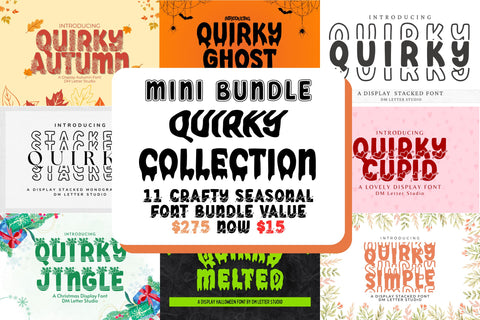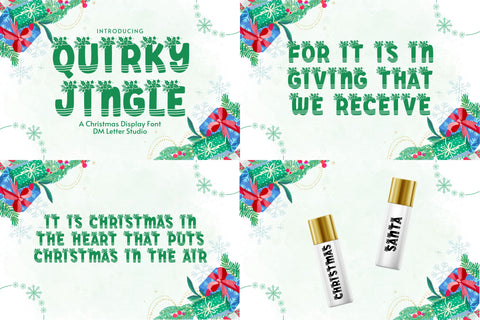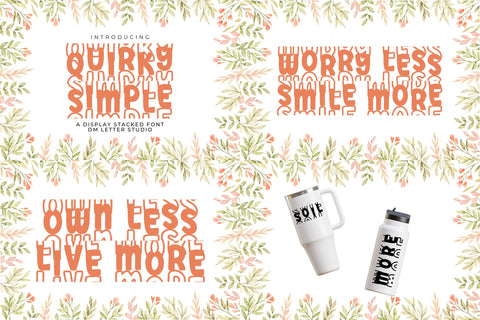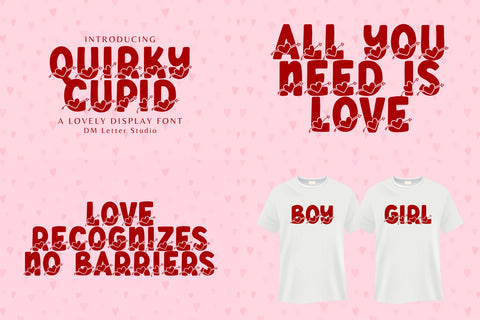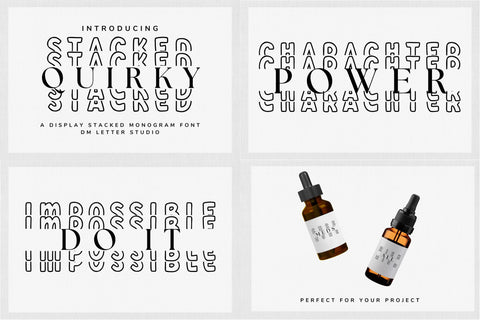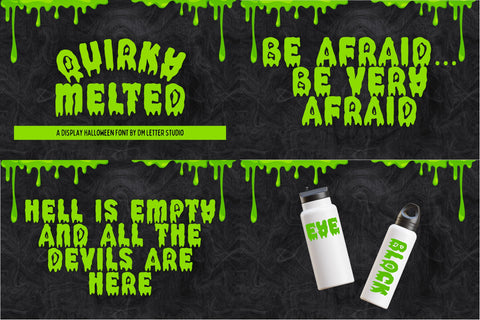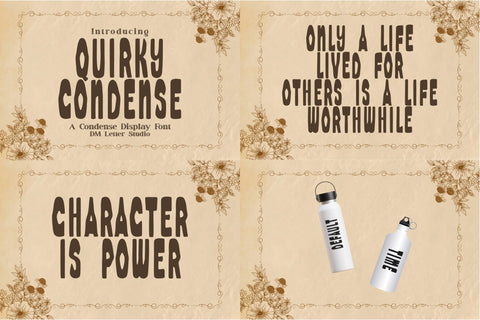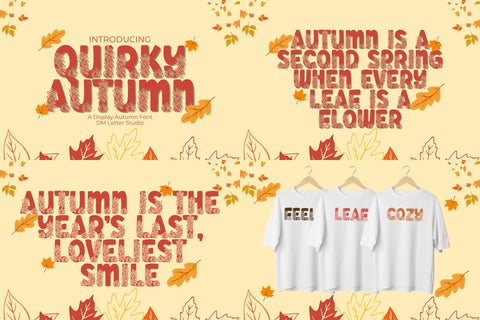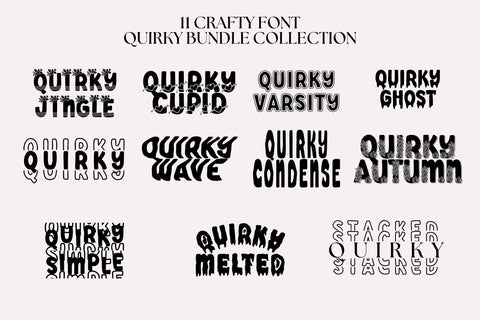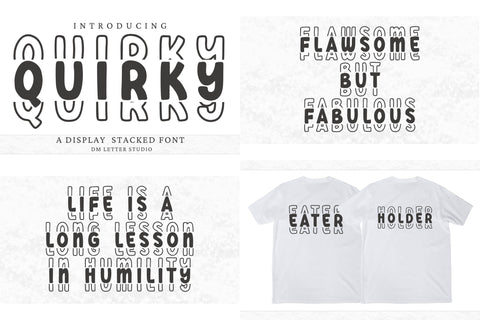
Mini Bundle - Quirky Collection
Get ready to transform your designs with the Mini Bundle - Quirky Collection by DM Letter Studio! This irresistible font bundle includes 11 vibrant and playful fonts, crafted to make your creative projects pop with personality and seasonal charm.
What's Inside the Collection?
11 Playful Fonts β A dynamic mix of quirky, seasonal, stacked, wavy, and condensed display styles.
Multiple Creative Themes β Celebrate autumn vibes, winter festivities, wavy summers, and Halloween chills!
Why Youβll Love This Bundle:
π₯ Perfect for Every Season β Fonts inspired by autumn coziness, winter wonderlands, spring blooms, and summer fun.
π₯ Quirky Personality β Bring warmth, charm, and a little bit of mischief to every project!
Hereβs What You Get:
Quirky Ghost β Playful Halloween font full of spooky charm.
Quirky Cupid β Sweet and lively for Valentineβs magic
Quirky Varsity β A whimsical varsity look with a fun twist
Quirky Jingle β Festive spirit packed into every letter.
Quirky Wave β Wavy and relaxed for summer vibes.
Quirky Condense β A bold, quirky, condensed style for trendy looks.
Quirky Stacked Monogram β Perfect for initials and creative monogram projects.
Quirky Autumn β Embrace the cozy fall spirit in every design.
Quirky Melted β Drippy, spooky fun for Halloween.
Quirky Stacked β Bold stacked lettering for a strong statement.
Quirky Simple Stacked β Clean, friendly stacked style for versatile projects.